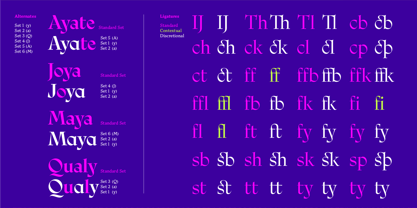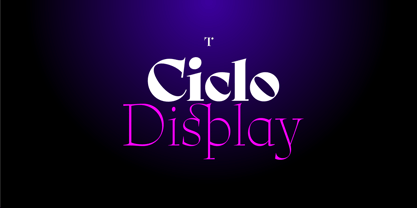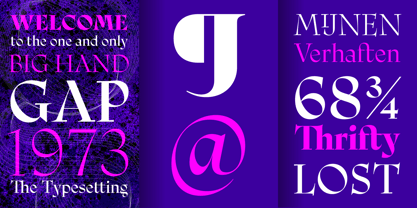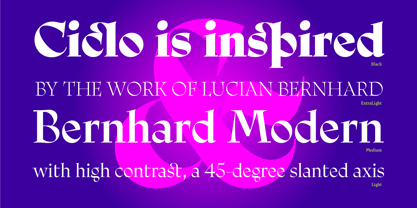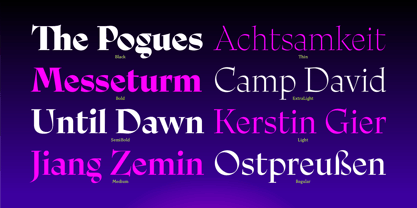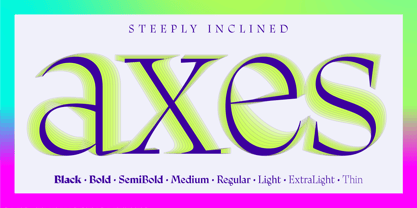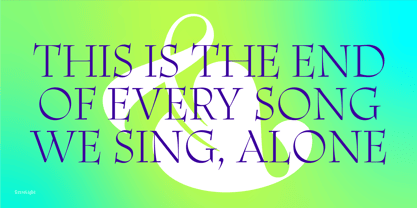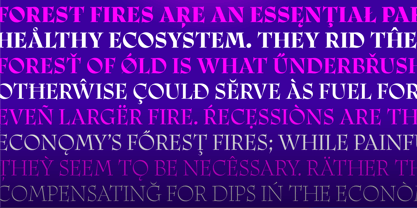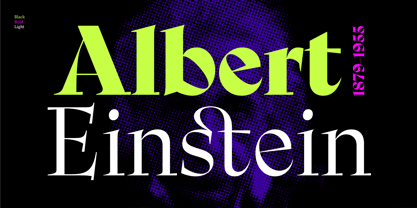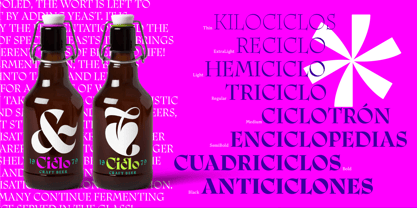
Ciclo Display
by Lechuga Type
The Ciclo Display Font Family was designed by Antonio Mejía and published by Lechuga Type. Ciclo Display contains 8 styles and family package options. More about this family
Ciclo is a type system inspired by the work of Lucian Bernhard, specifically Bernhard Modern, with high contrast and a dramatically inclined axis. The inclination of the inner axis, nearly 45 degrees in some characters, was found to be a particularly intriguing aspect. To that end, I have endeavored to preserve a notably steep angle in the majority of the characters within the Display family. The system will also include a Text family with a lower contrast and tilt angle for easier reading. The name "Ciclo" is derived from the existing rotation on the internal axis of the characters and the interpolation between the Display and Text versions, in search of a third variant (Subhead) in which this angle is a factor that determines the optical sizes of the different variants.